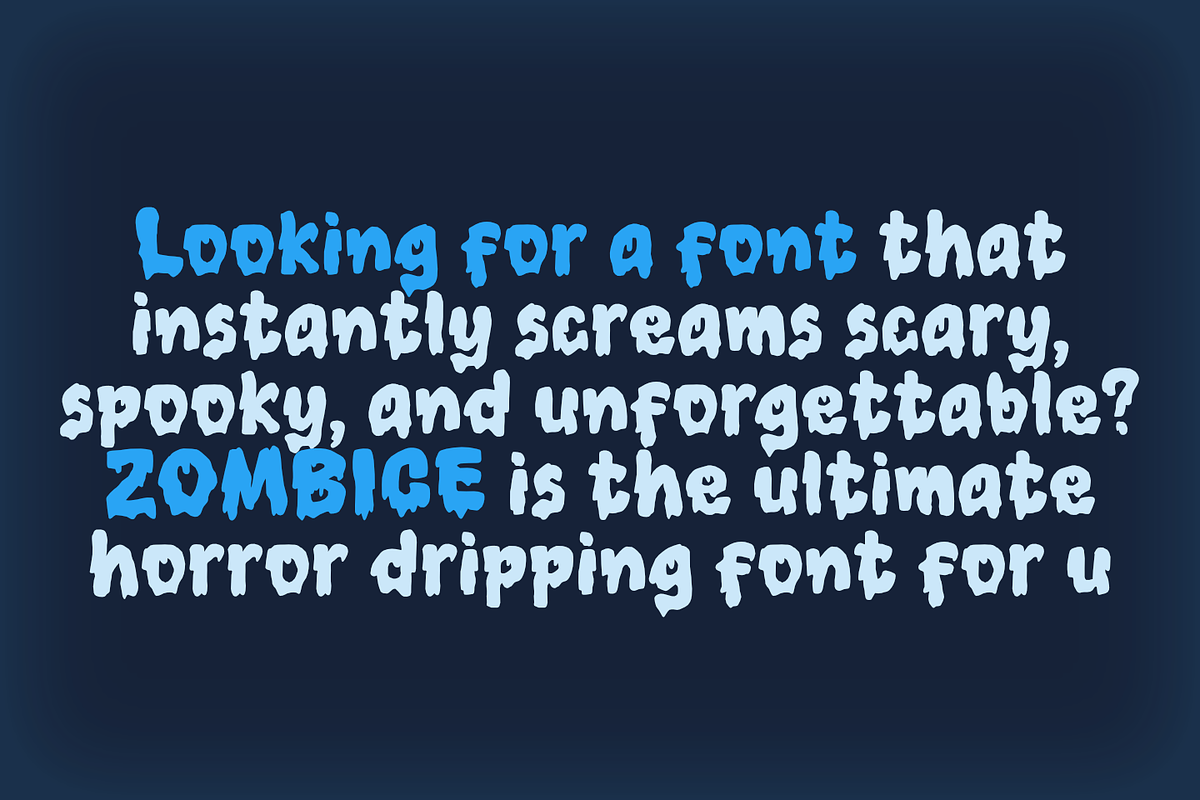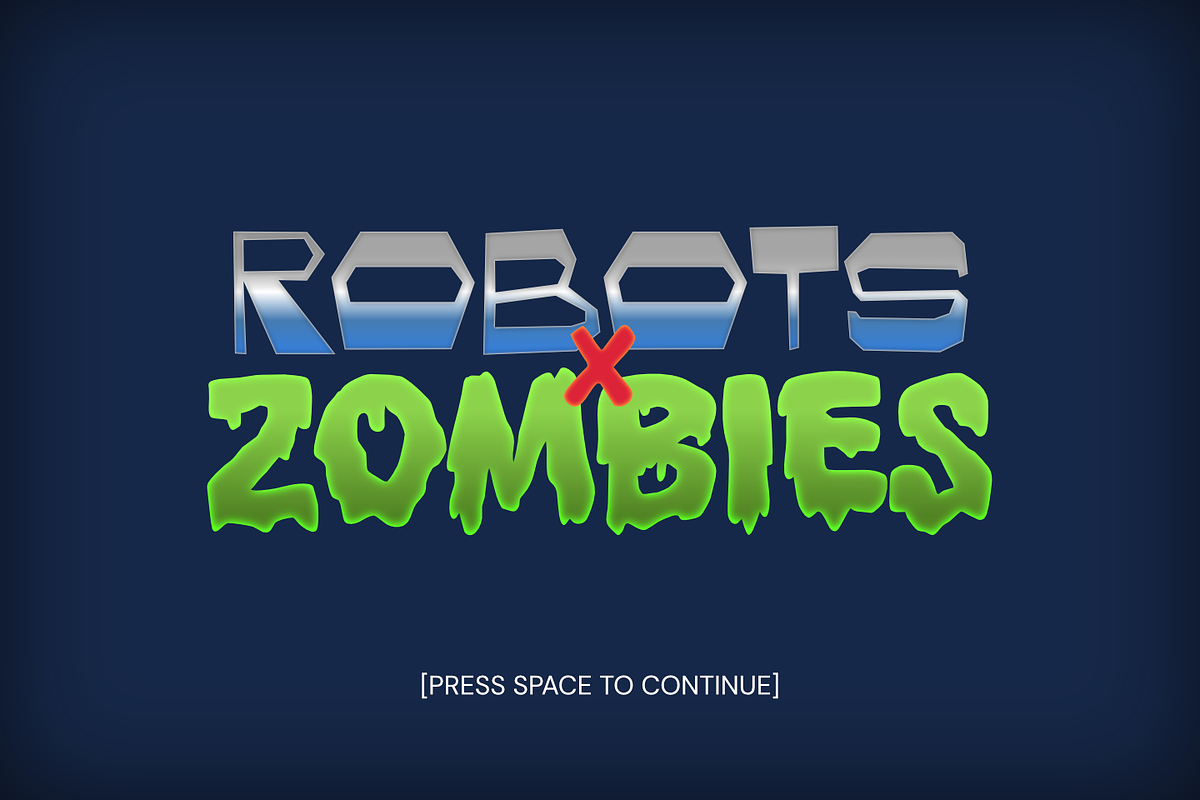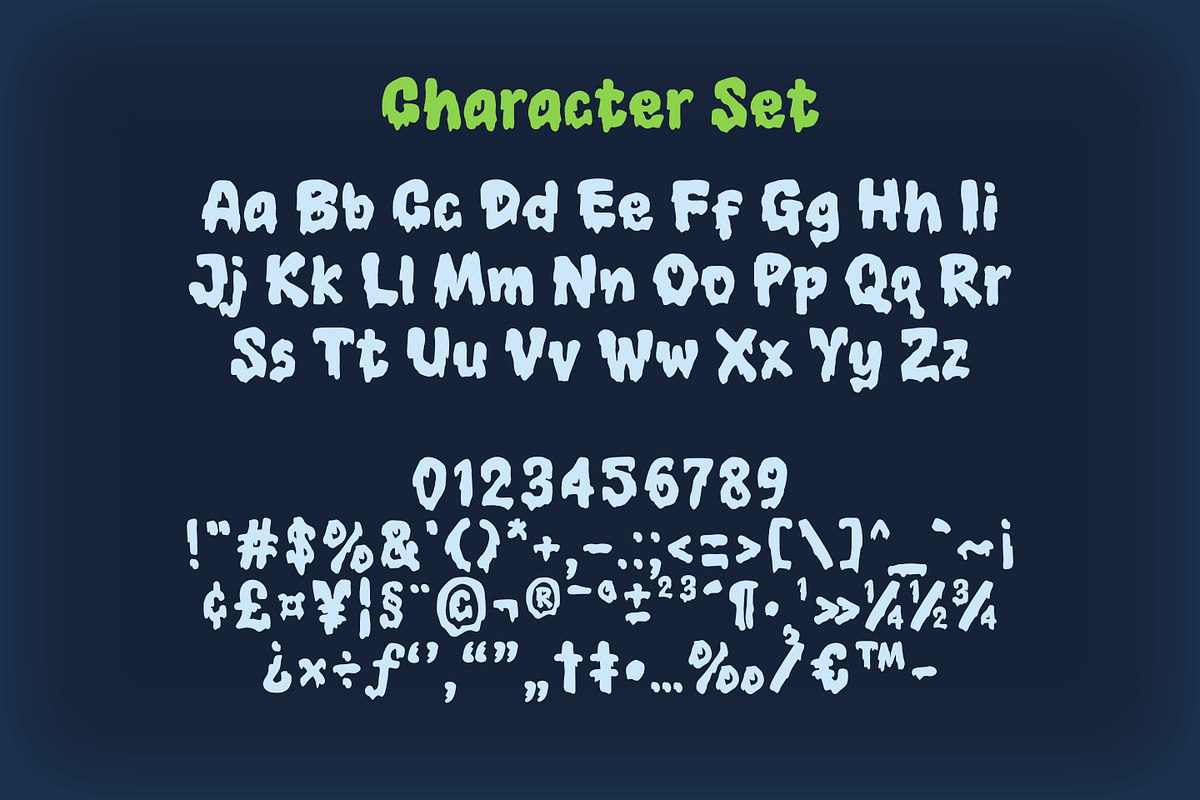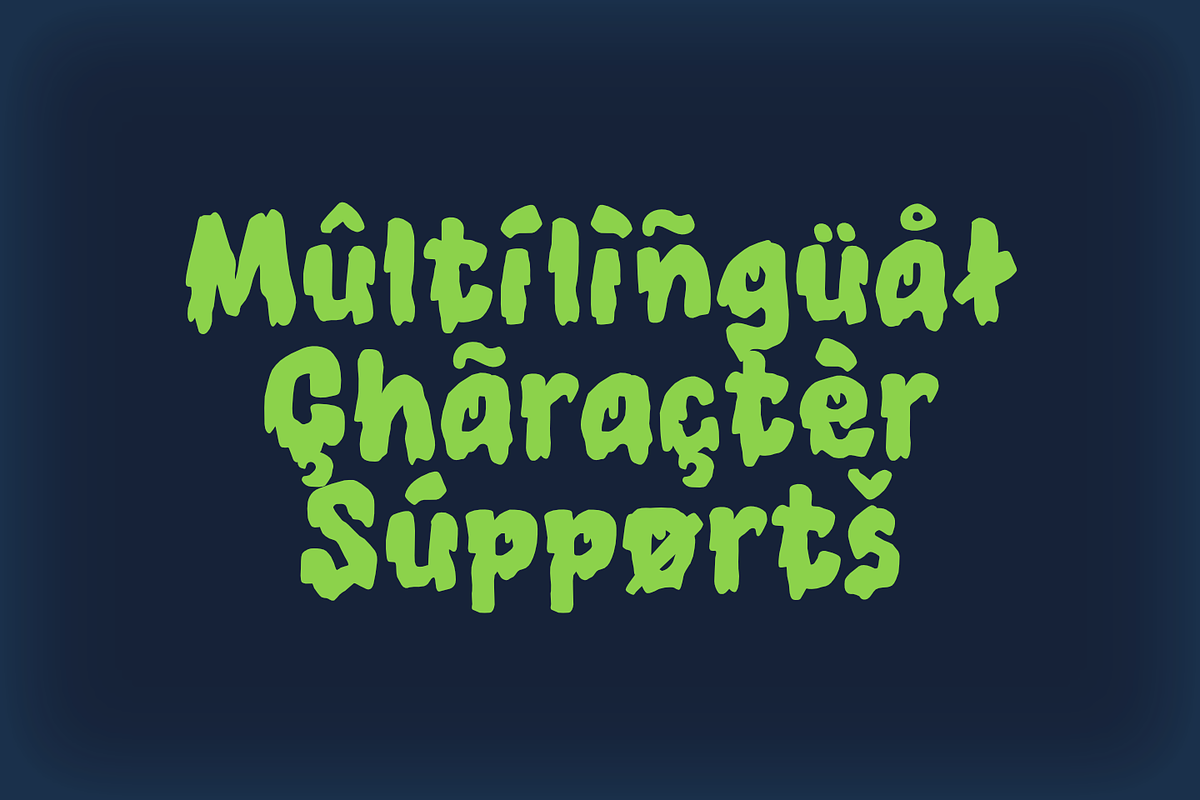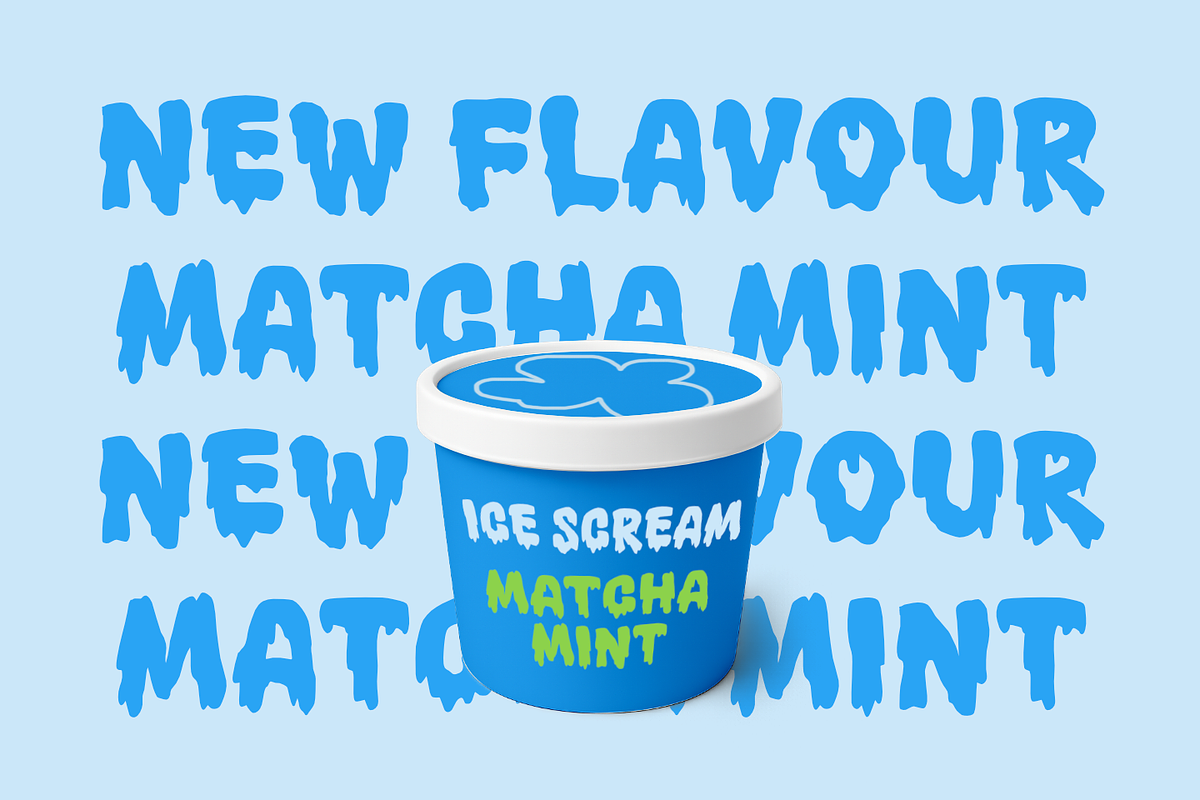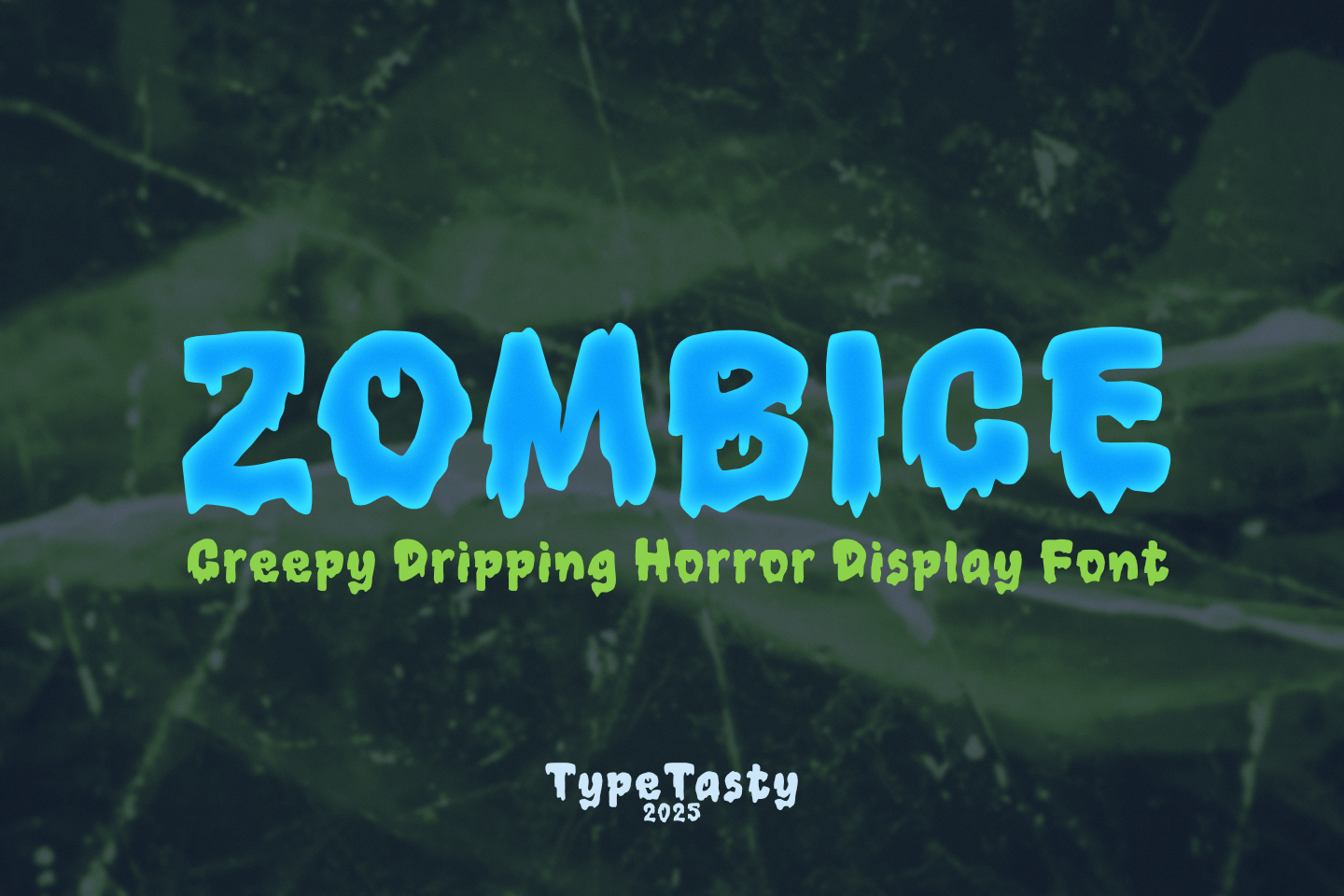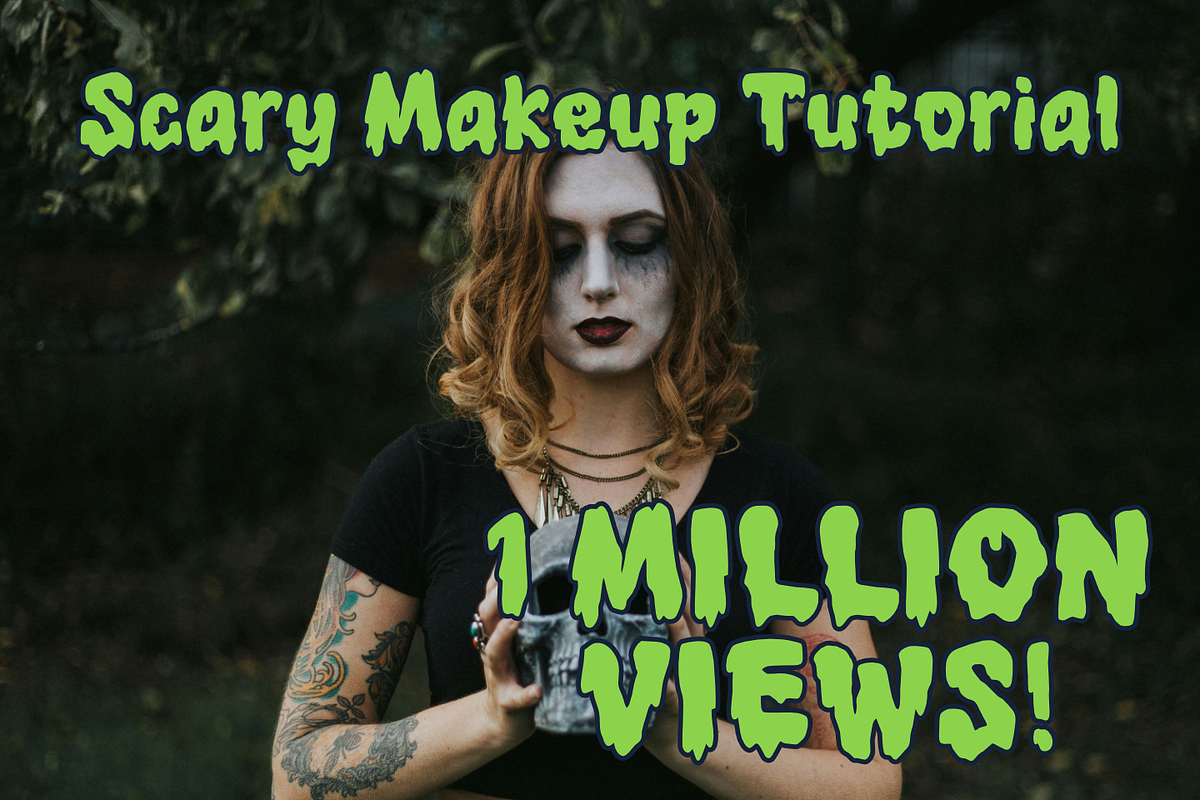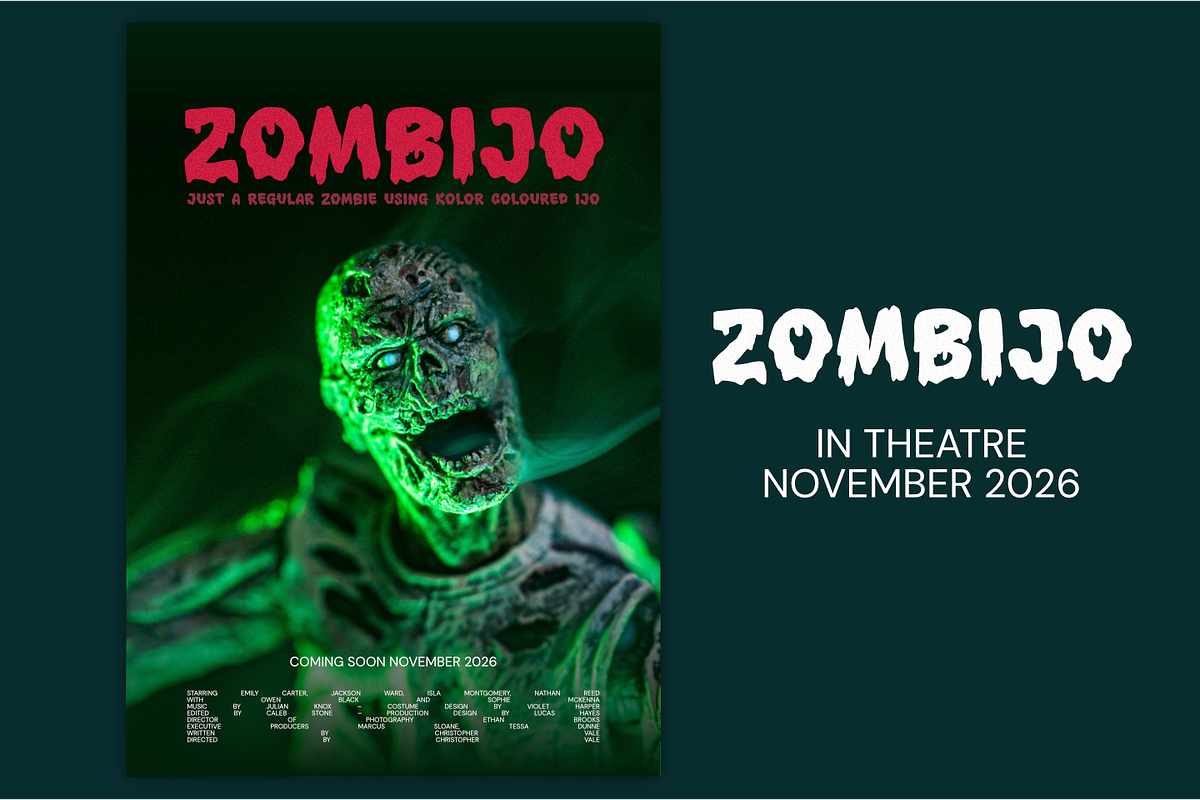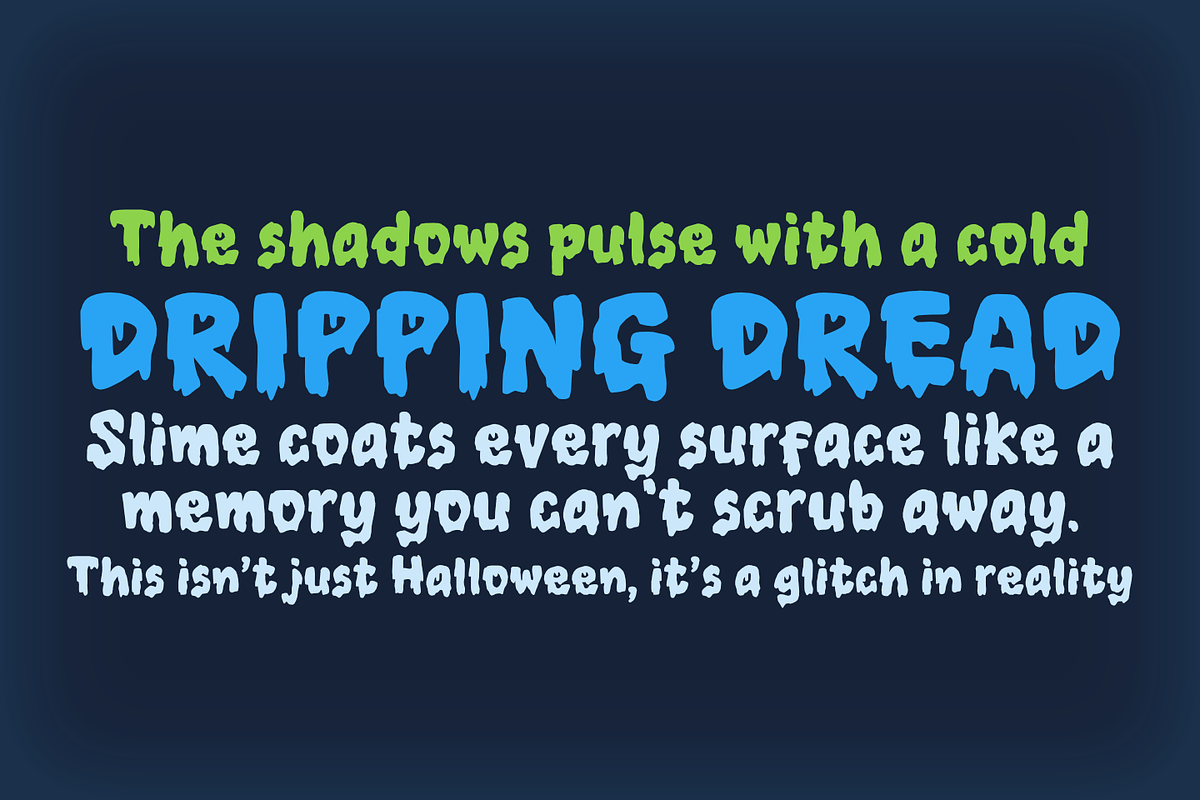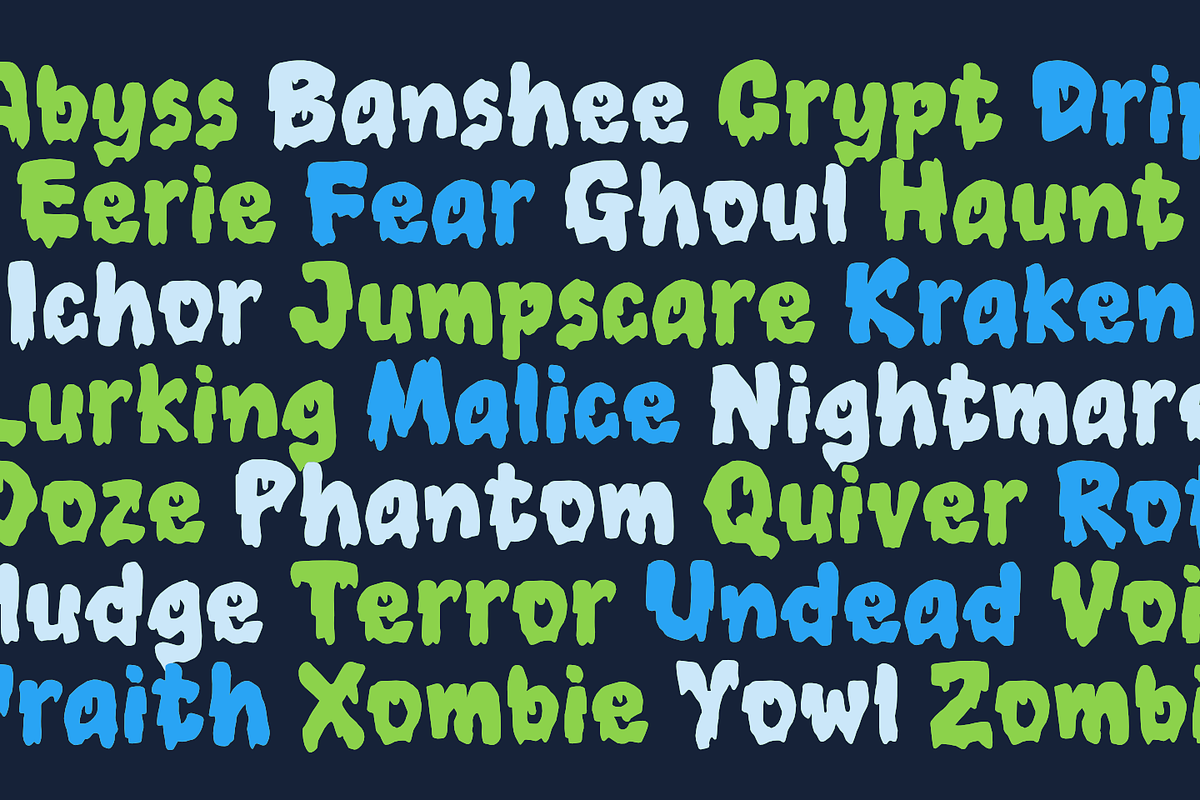
Zombice – Creepy Horror Font
Zombice is a creepy dripping display font with a chilling mix of horror and icy slime vibes, making it perfect for Halloween posters, gaming designs, spooky logos, and merchandise. Its bold letterforms resemble melting ice or dripping slime, giving your designs a scary yet playful aesthetic. Available in OTF, TTF, and WOFF formats and fully PUA encoded, Zombice is the ideal typeface to make your horror-themed projects stand out.
Zombice is a creepy dripping display font that combines horror-inspired vibes with a chilling icy look. The bold, melting letterforms create a sense of mystery, fear, and fun, making it perfect for Halloween posters, gaming logos, scary movie titles, or spooky merchandise.
Style & Vibe: Horror, creepy, drippy, bold, spooky-fun
Intended Market: Halloween designers, gaming brands, horror movie posters, themed event flyers, merchandise sellers
Letterform Structure: Bold uppercase with dripping/slimy shapes that resemble melting ice or blood
Best Use Cases: Horror branding, Halloween events, gaming graphics, posters, YouTube thumbnails, apparel
Looking for a font that instantly screams scary, spooky, and unforgettable? Zombice is the ultimate horror dripping font that makes every design feel alive (or undead).
Why you should choose MGF Zombice:
🧟 Creepy Dripping Style – Perfectly spooky for horror and Halloween projects.
❄️ Icy + Slimy Look – Unique design that can look like melting ice or dripping blood.
🎮 Gaming & Entertainment Ready – Ideal for streamers, YouTube, and event posters.
👕 Merchandise Friendly – Works great on T-shirts, stickers, and Halloween-themed products.